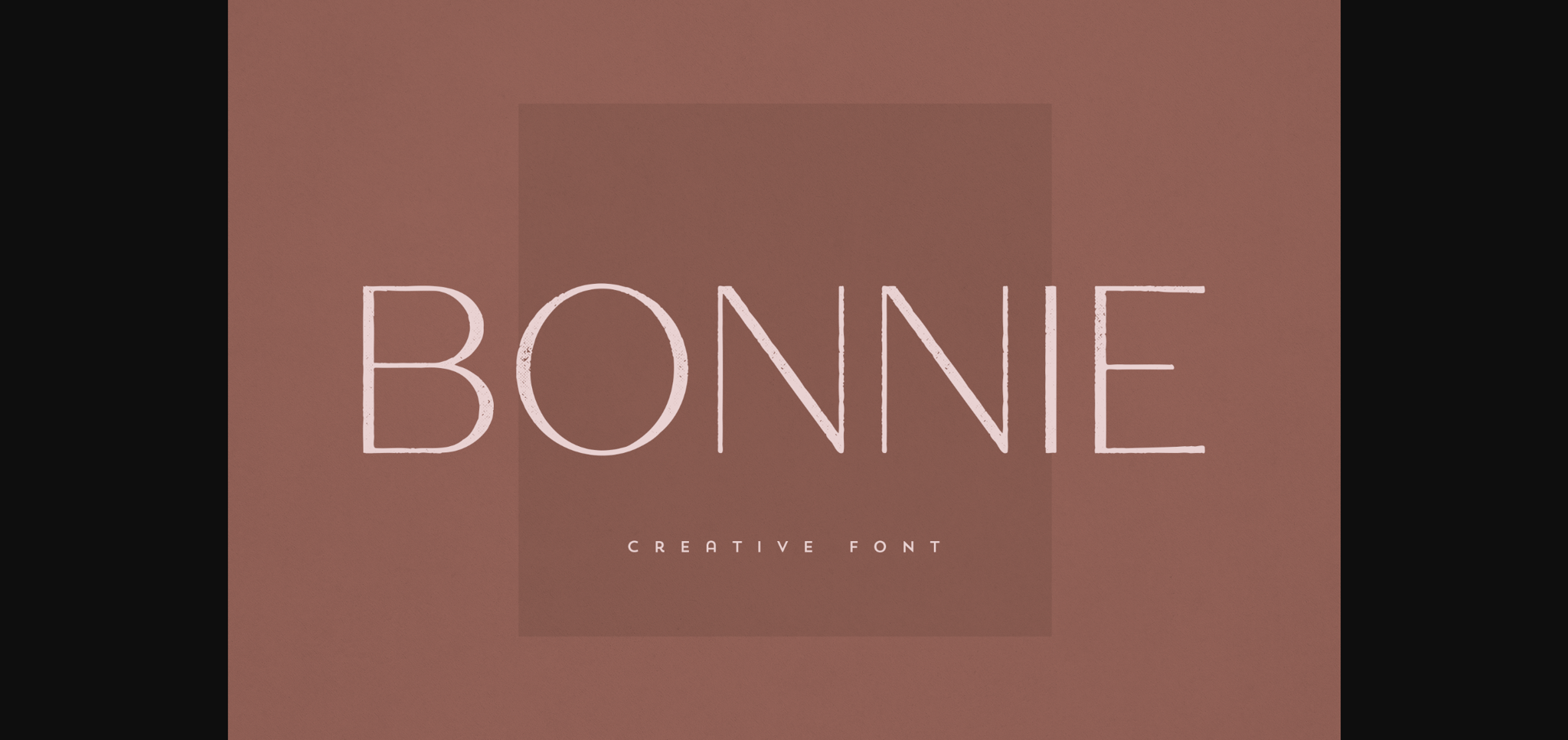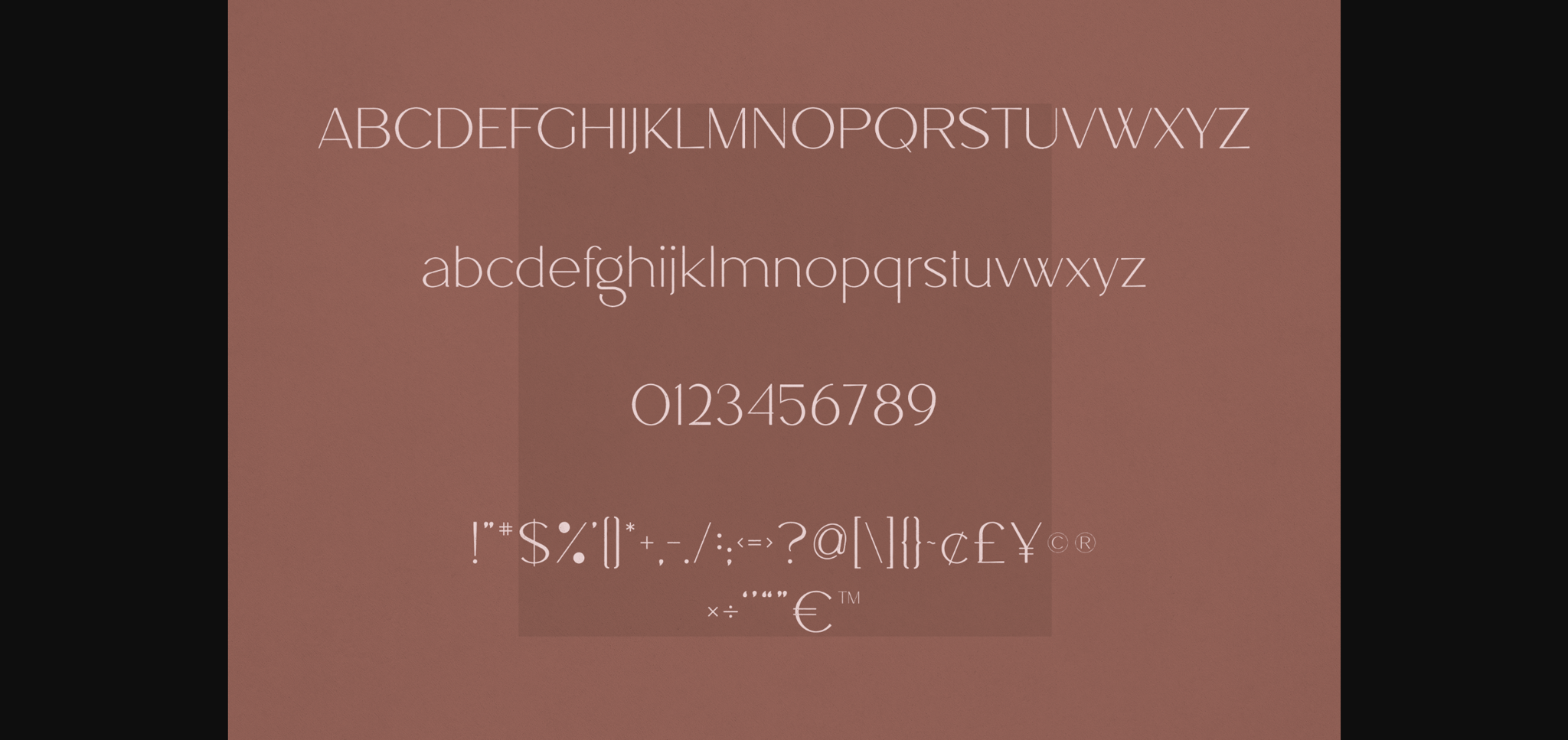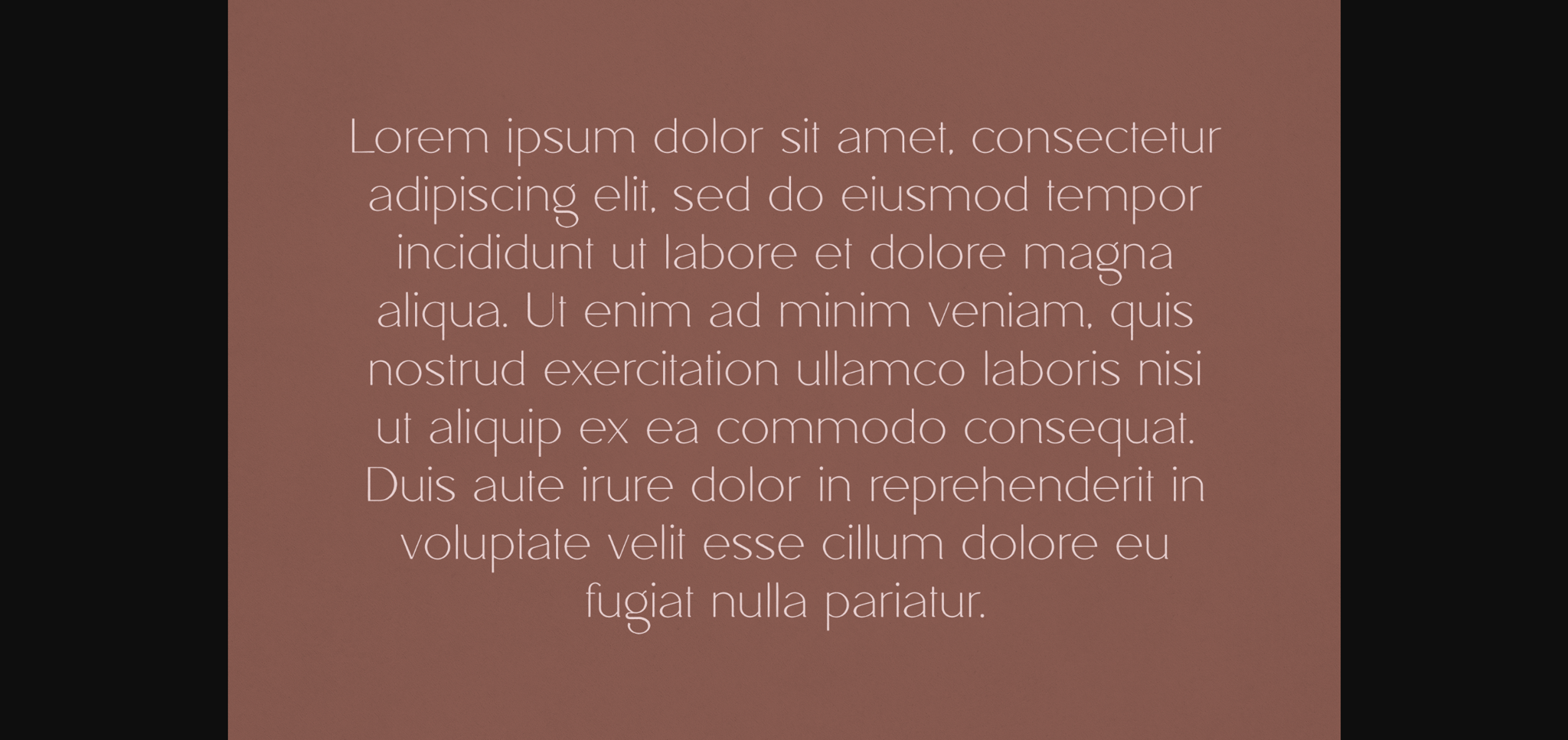
Bonnie Font
About Bonnie Font
Bonnie is an elegant and versatile sans serif font that will make your typography truly unique! It will enchant every logo, branding, headline, or plain text!